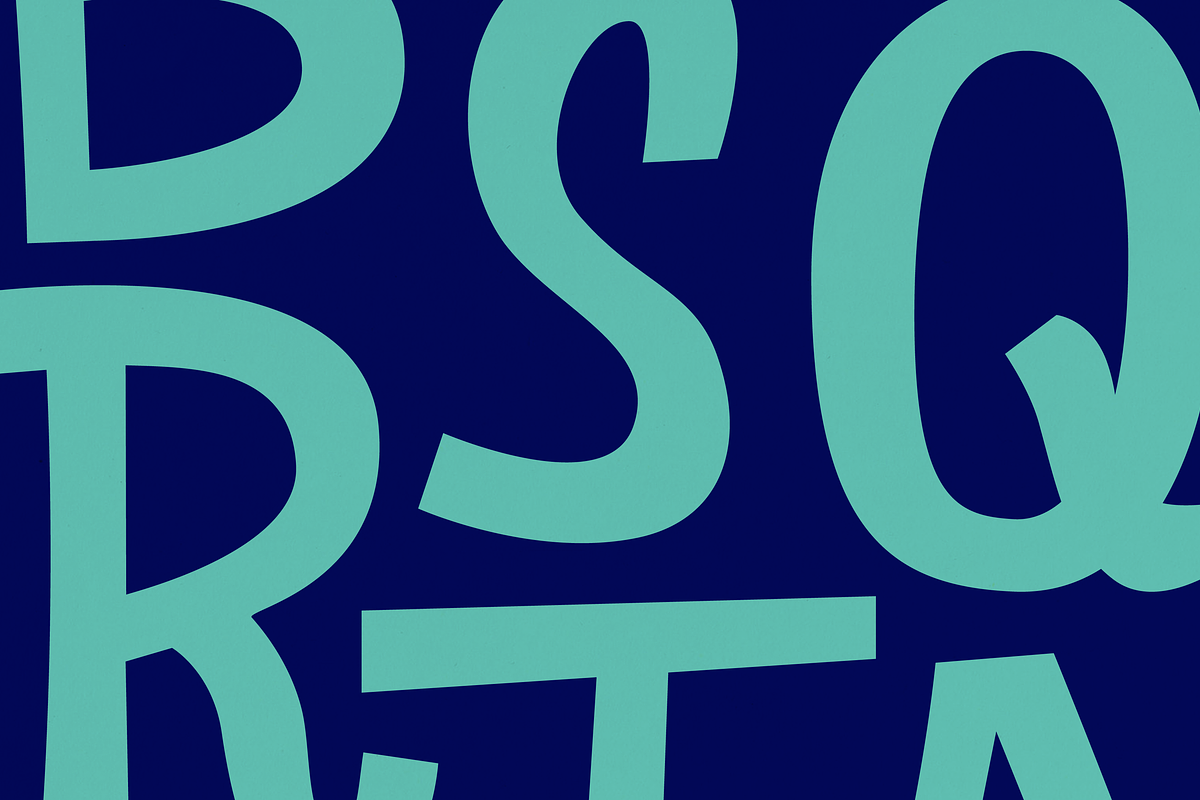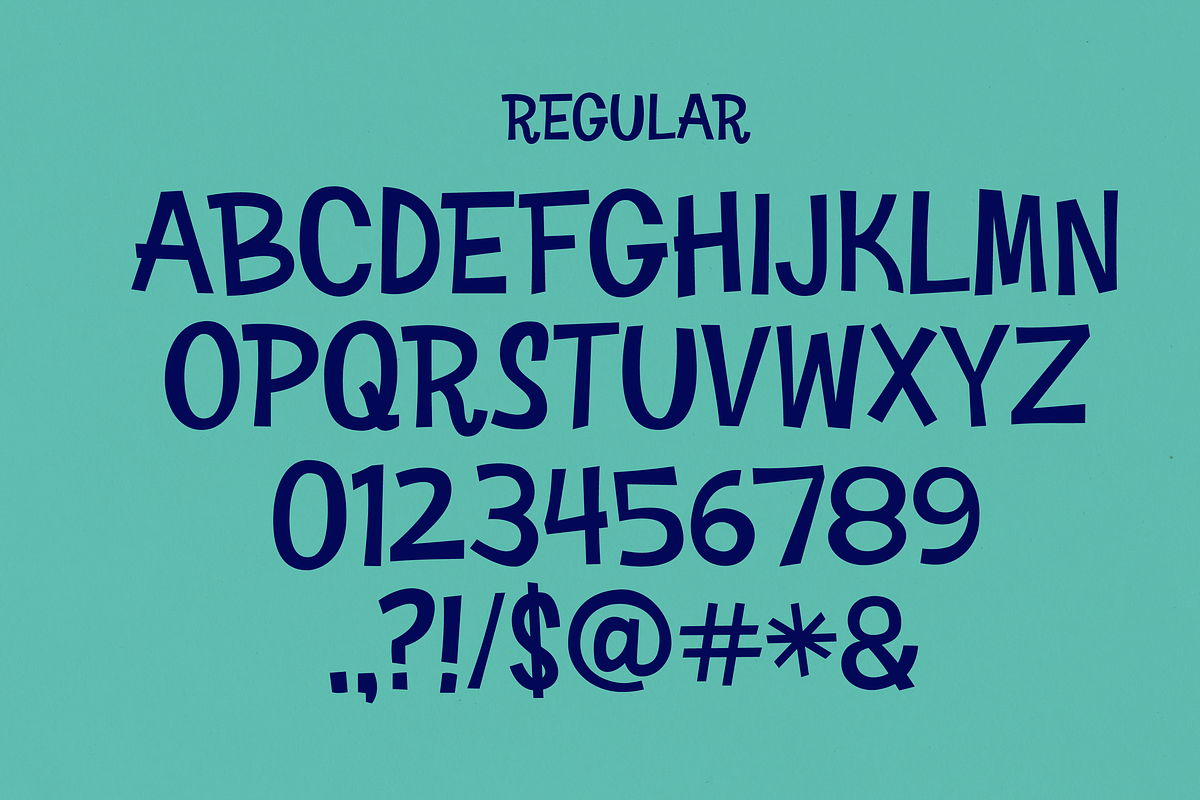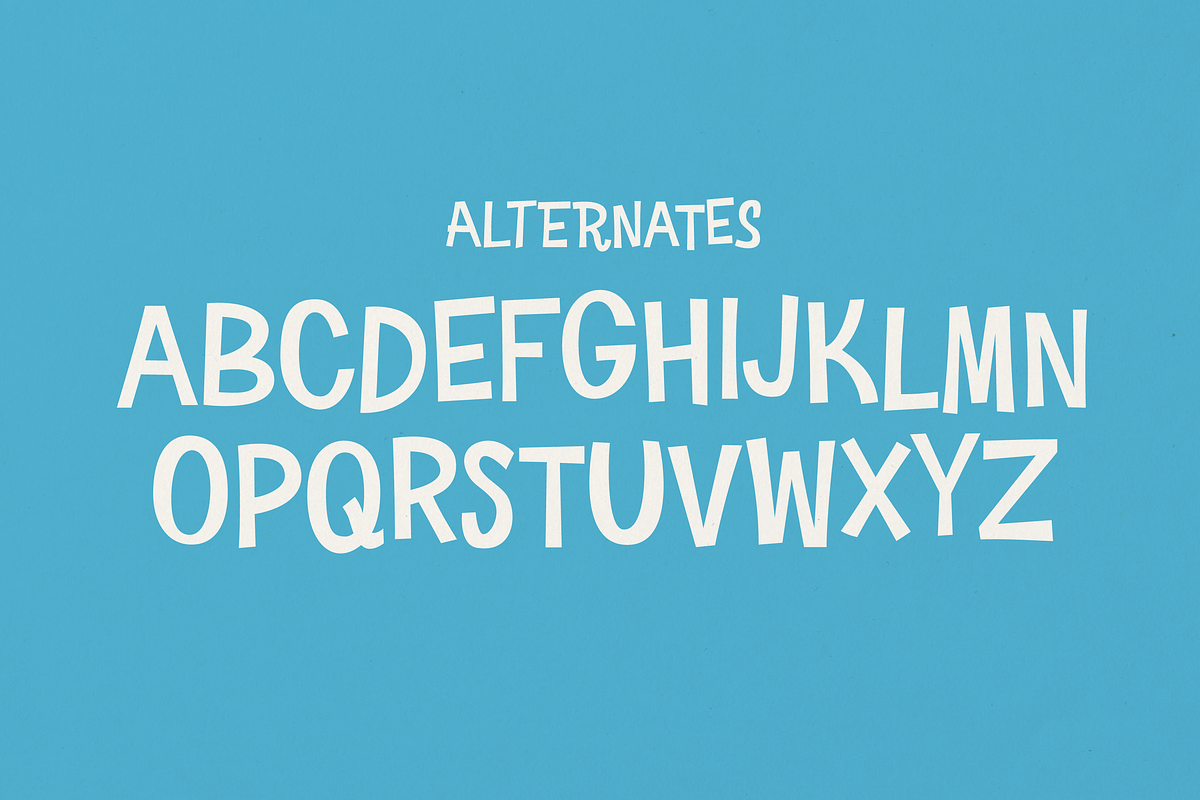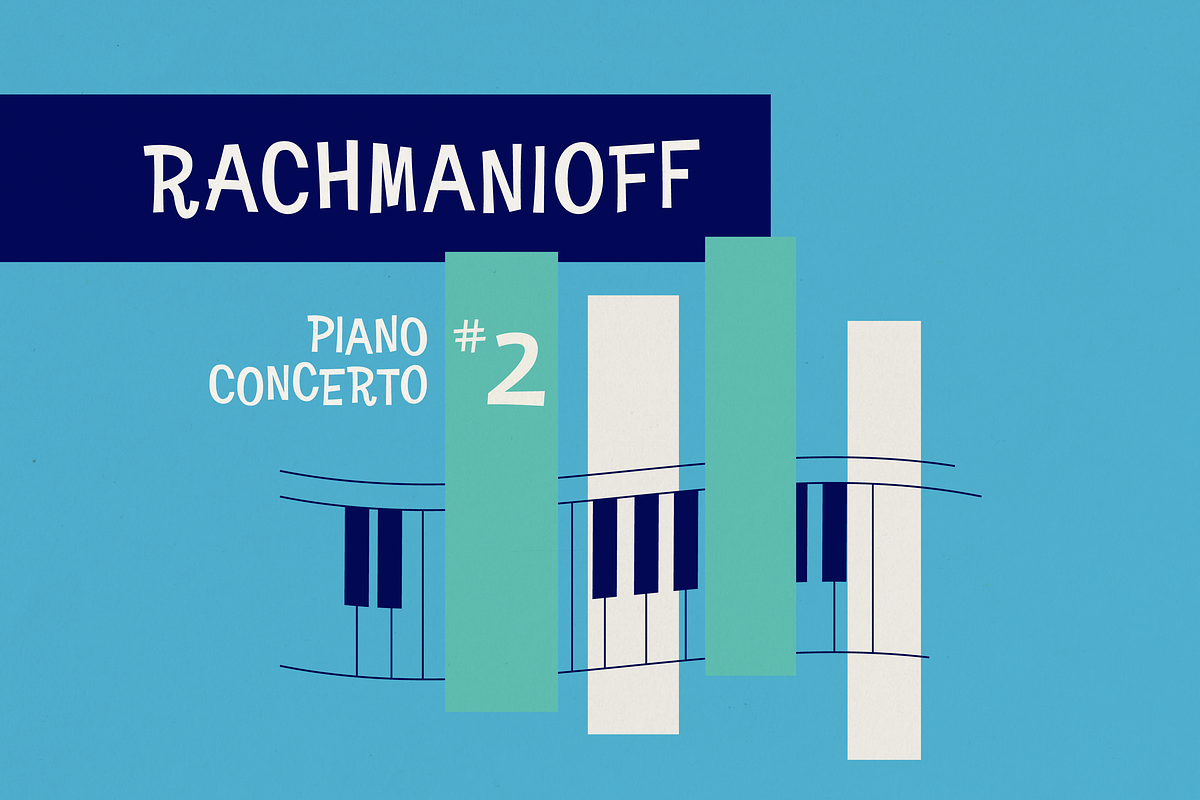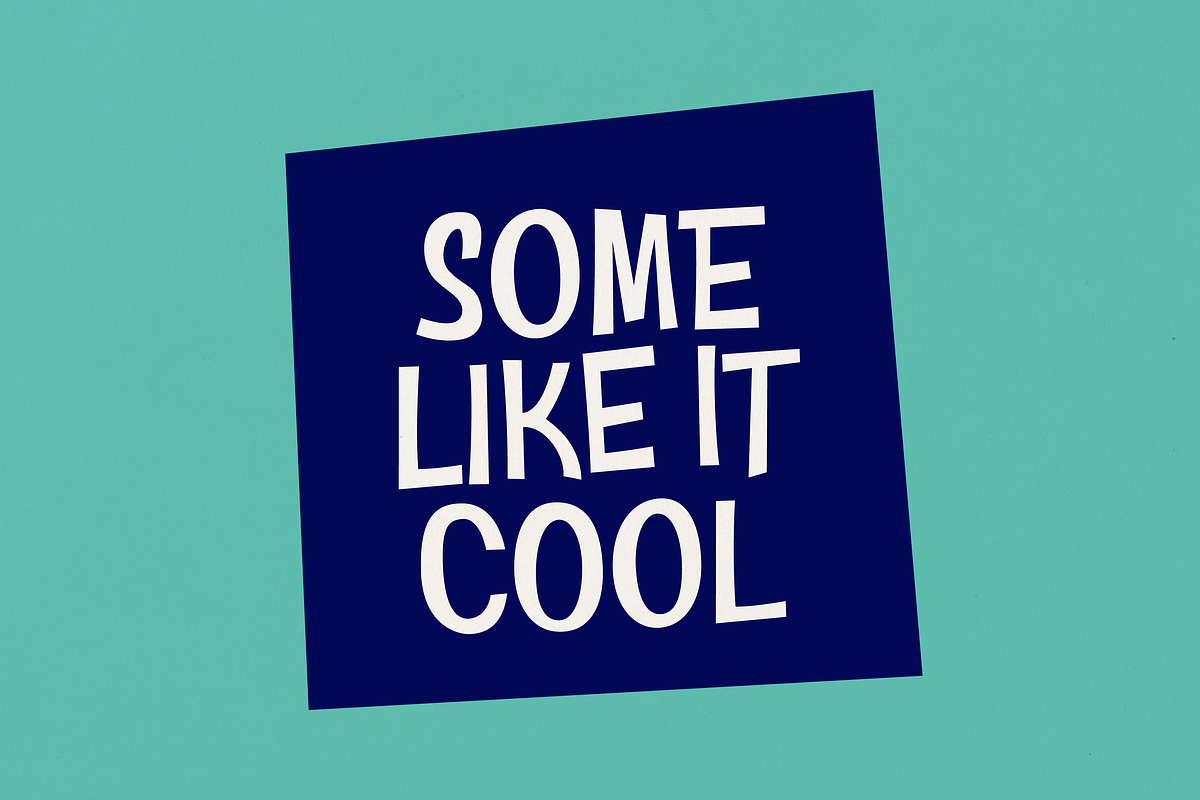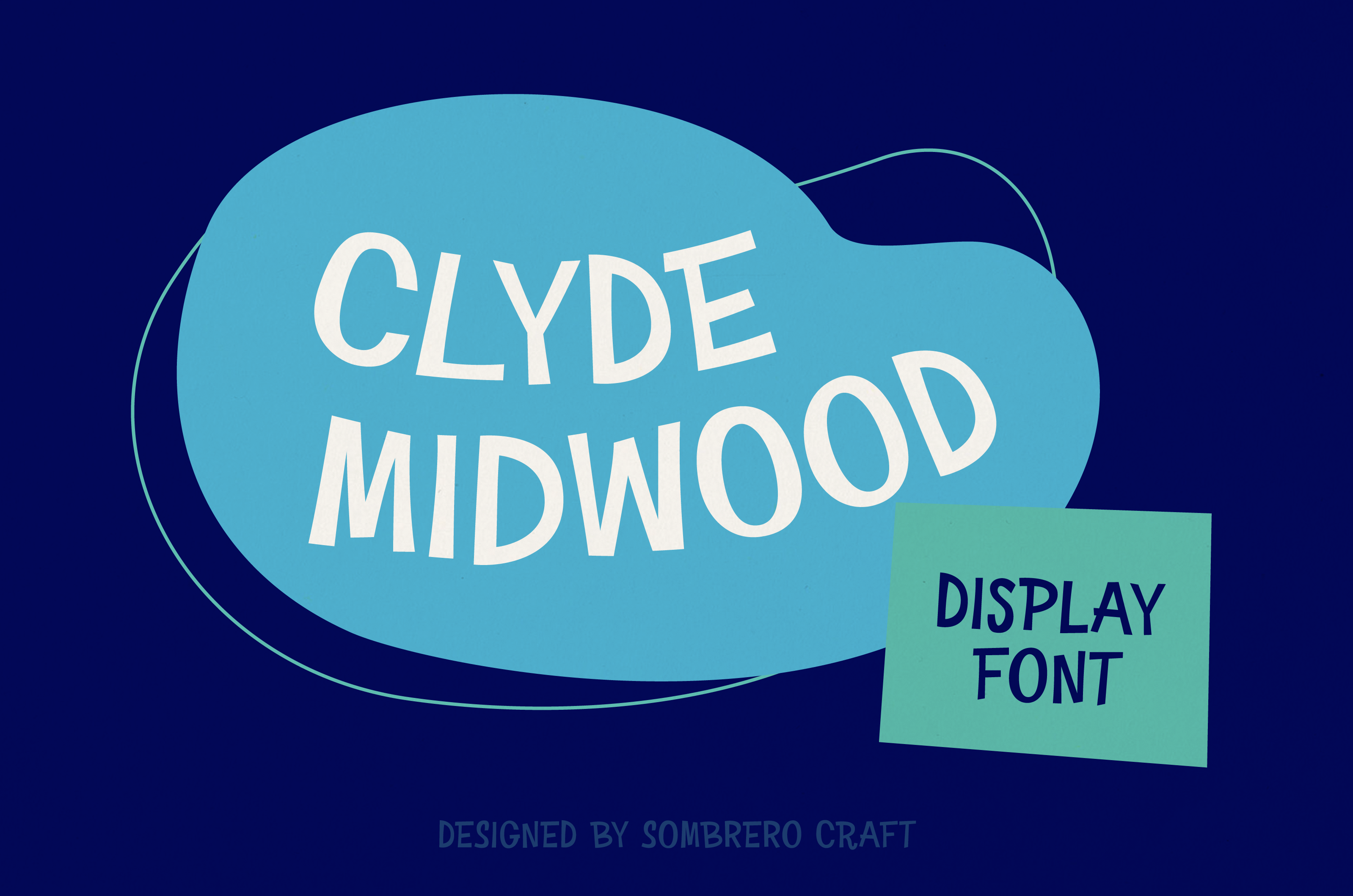
Clyde Midwood - Offbeat Display Font
Clyde Midwood is a slightly offbeat sans serif display font. Based off an old paperback title from the mid-century, rendered and added upon. Includes alternate characters!